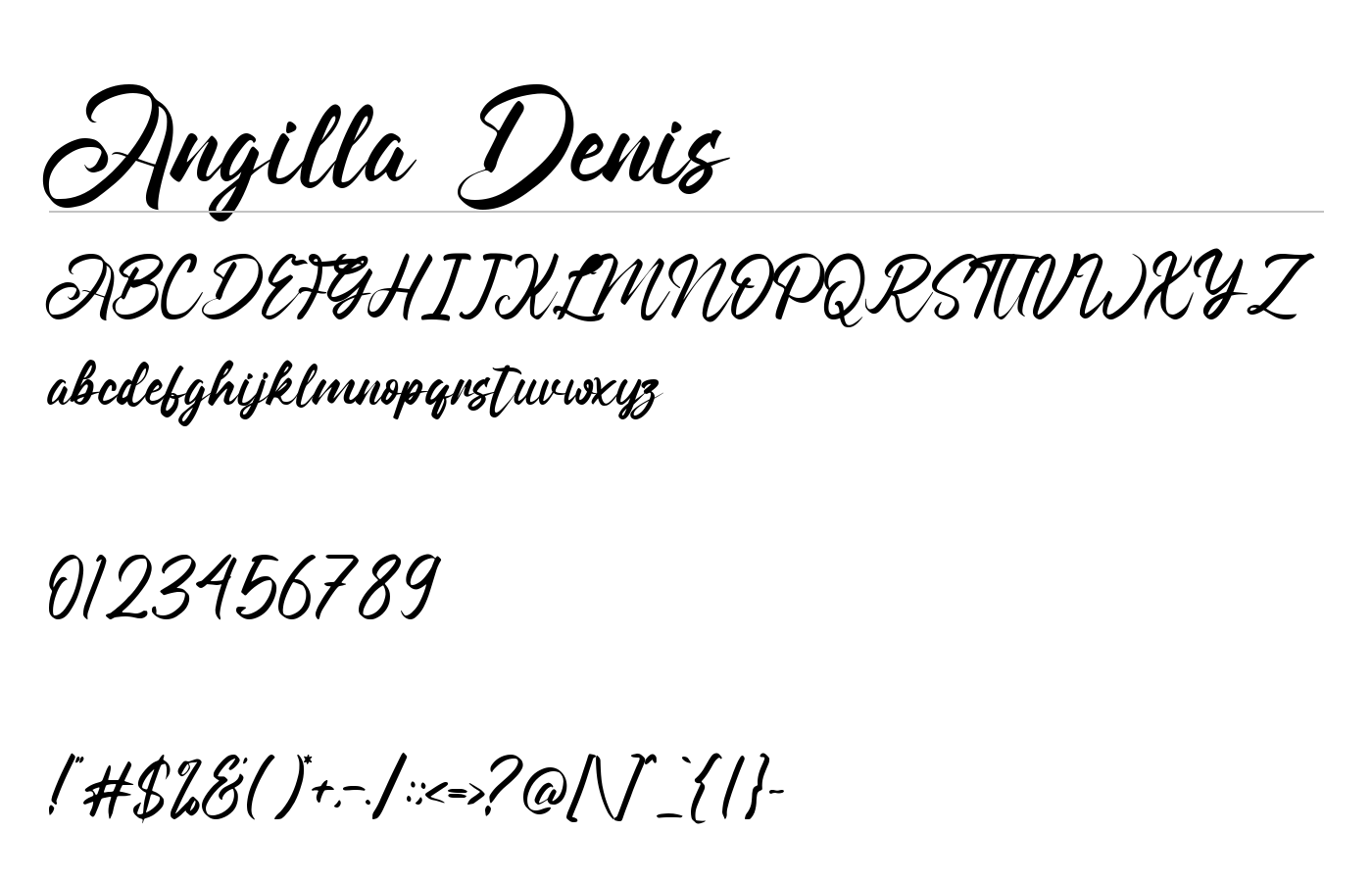
Angilla Denis is an elegant script font featuring fluid, connected strokes with a moderate contrast that gives it a hand-lettered, sophisticated feel. Its graceful curves and slightly condensed letterforms make it ideal for stylish branding, invitations, and logos that seek a refined yet approachable look. This font shines in designs where a personal, artistic touch is desired, lending a sense of charm and elegance without sacrificing readability.
Angilla Denis Font
About Angilla Denis Font
| Font family | Angilla Denis Font |
| Designer | Virgiawan Listanto. 2020 |